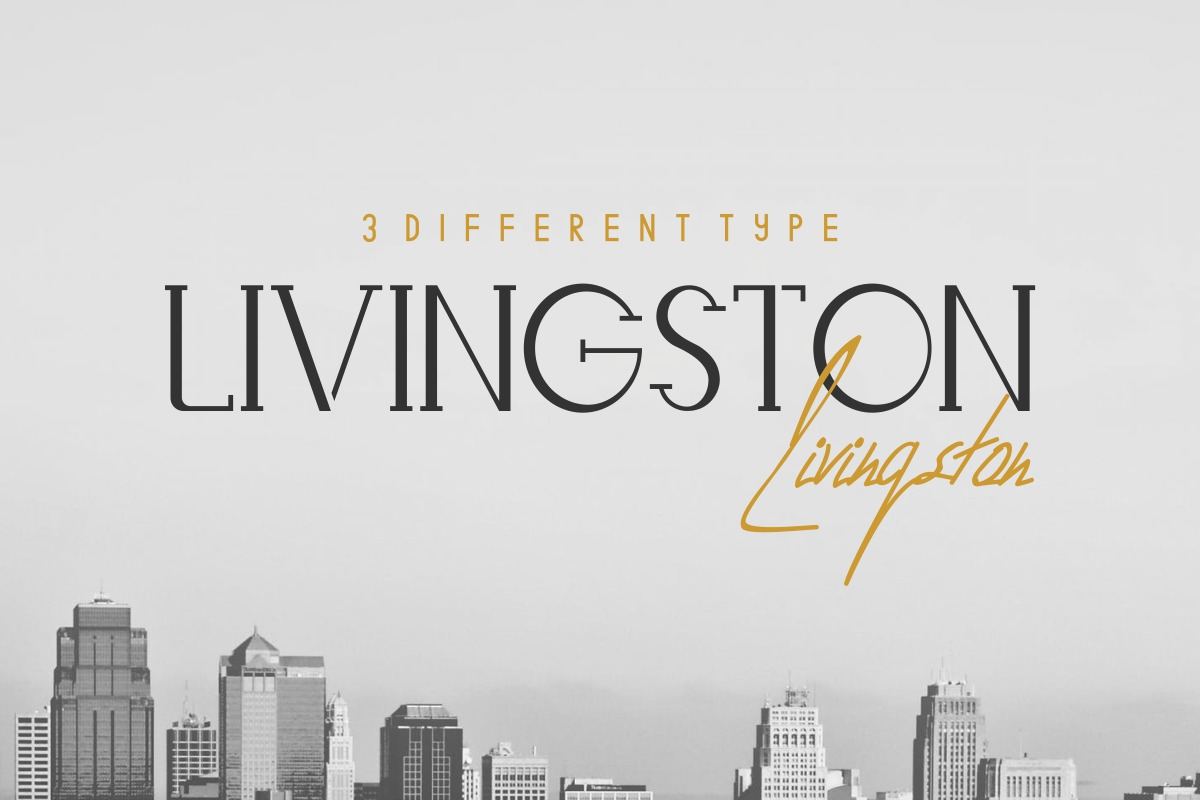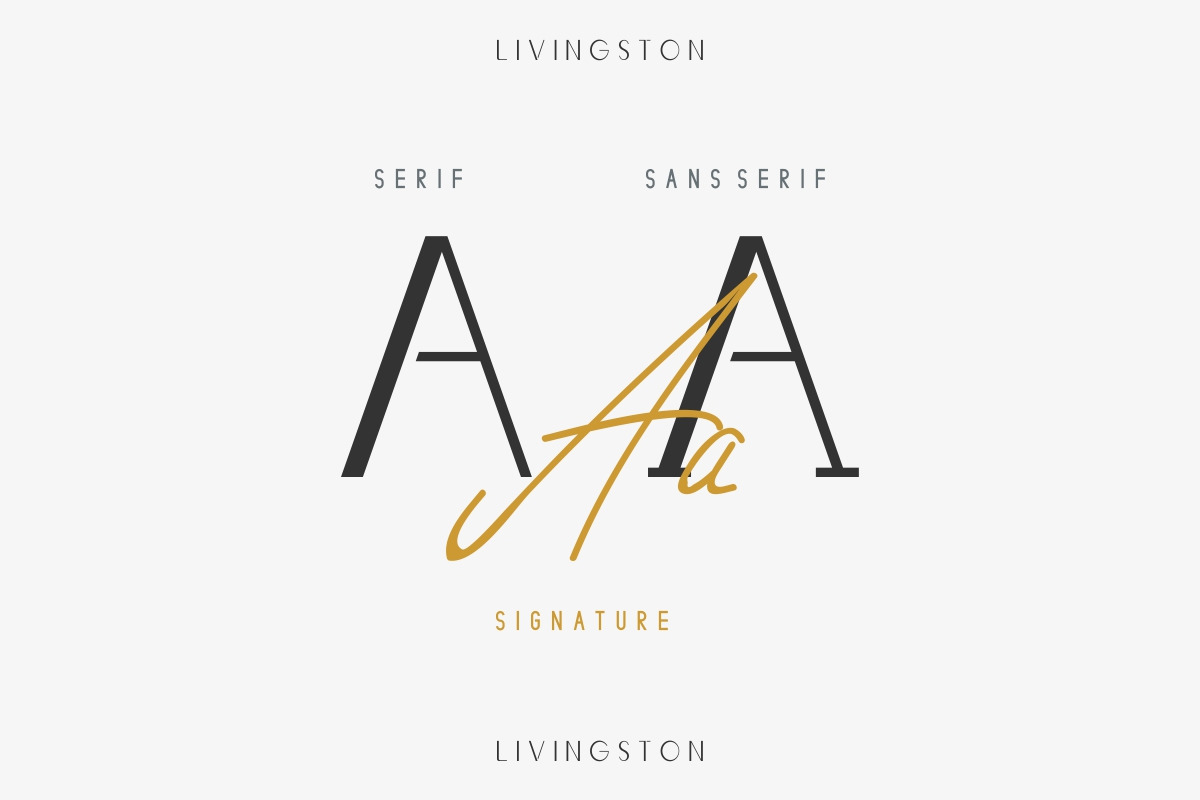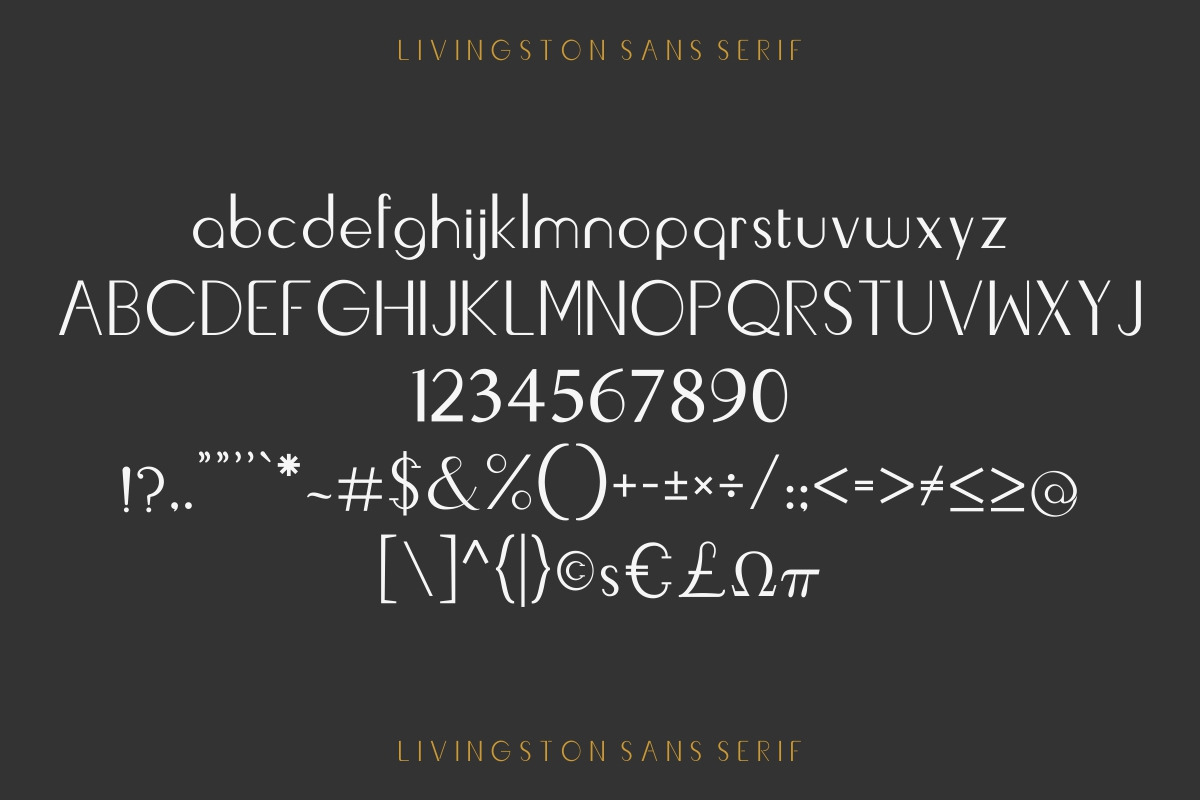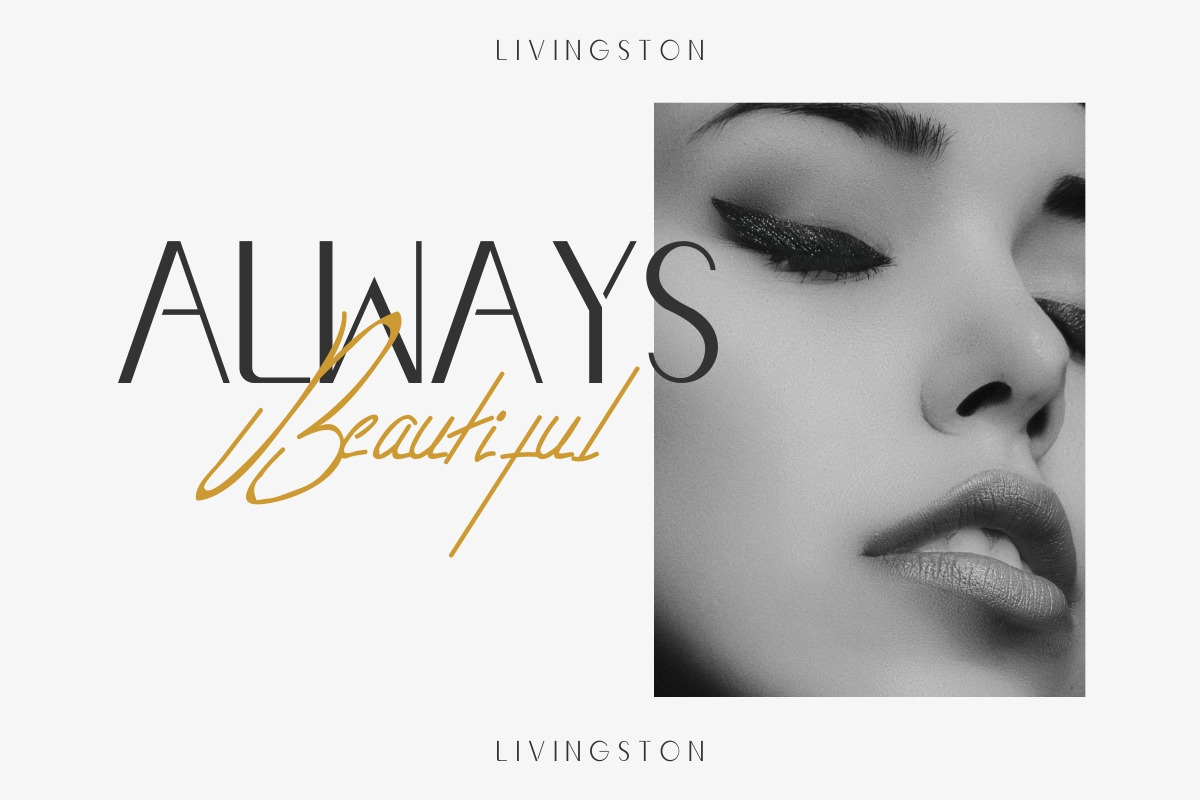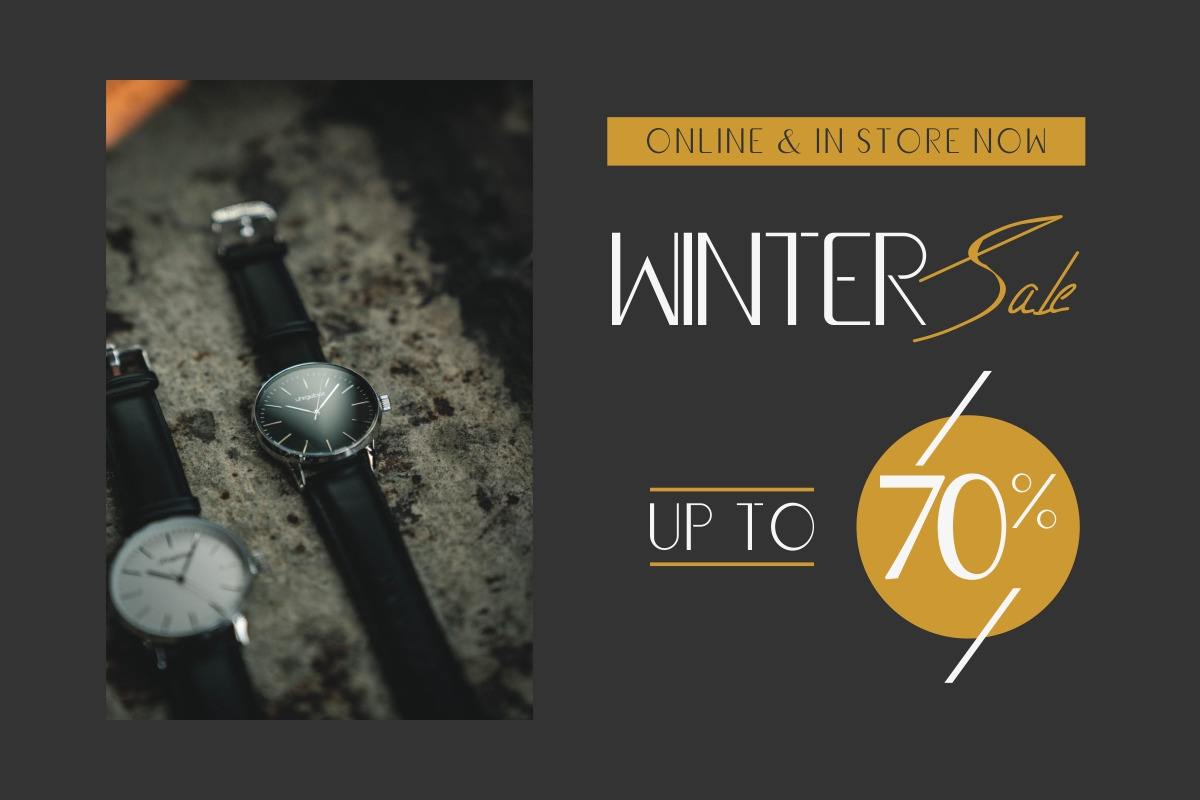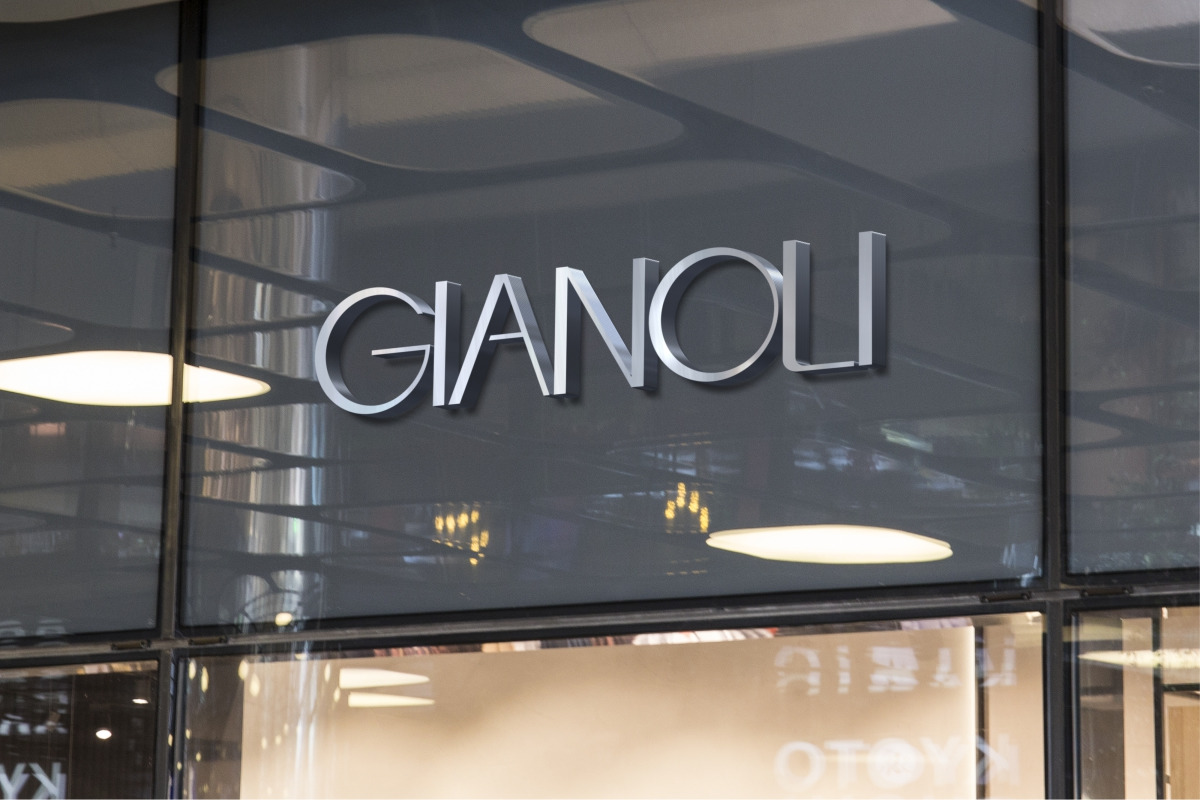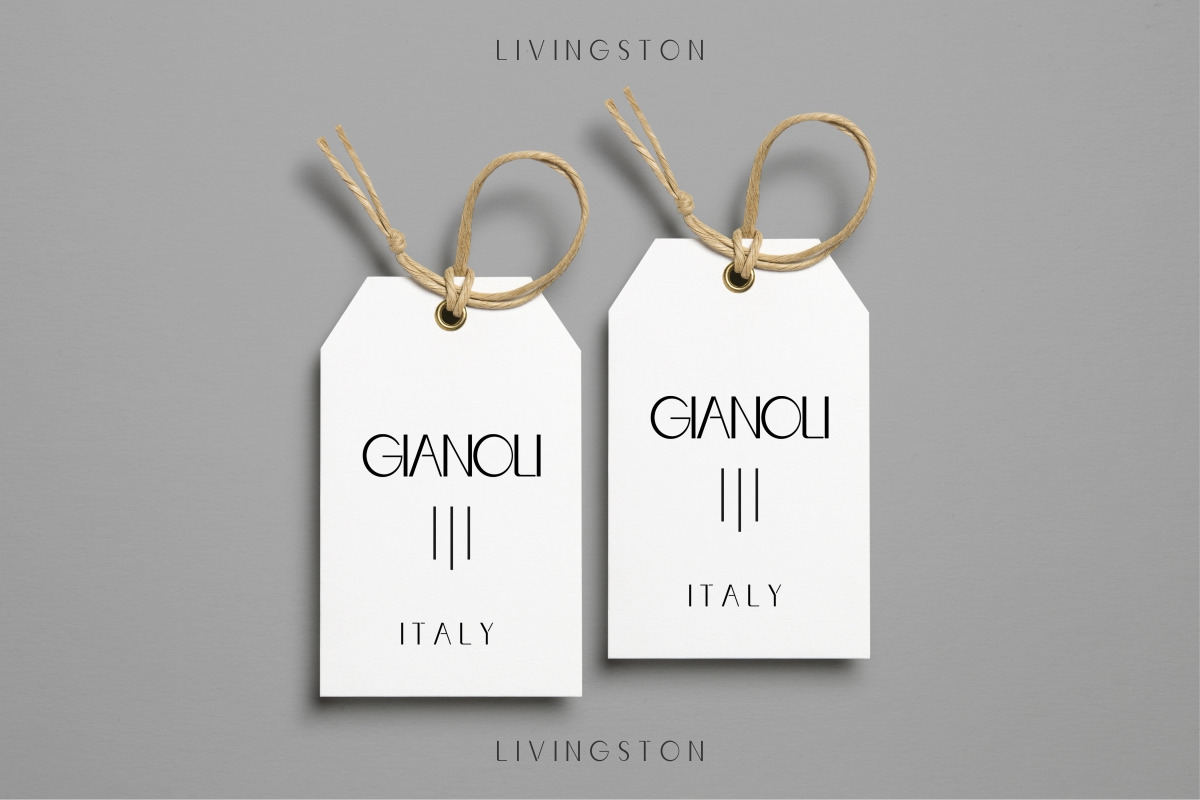
Livingston Font Trio
Hola! Introducing our newest font : Livingston ! It’s TRIO!!!! These family font comes with: Serif, Sans and Script. ALL IN ONE PACK
This is a new modern font. With a script handwriting feminime signature style font. Elegant Sans and Exclusive Serif font.